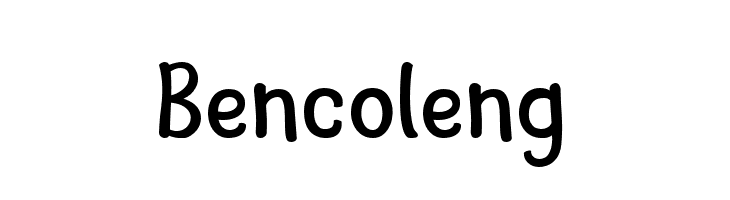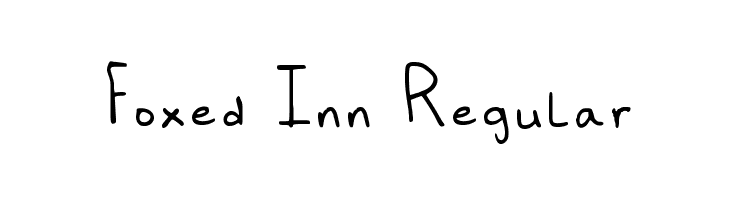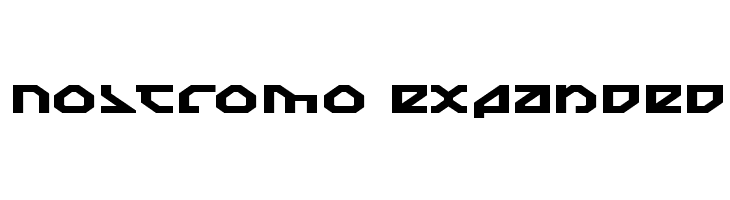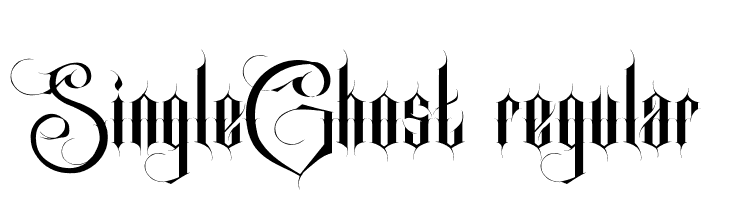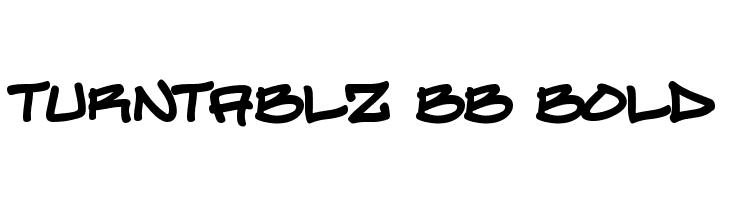
A playful, hand-drawn font with a whimsical and informal style.
Elegant handwritten script font.
A playful, rounded font with a hand-drawn, informal style.
A playful, hand-drawn font with rounded, friendly characters.
A Gothic-inspired font with sharp serifs and high contrast, ideal for dramatic and elegant designs.
A bold, geometric font with rounded edges and a modernist influence.
A playful, bold, and rounded font with a cartoonish style.